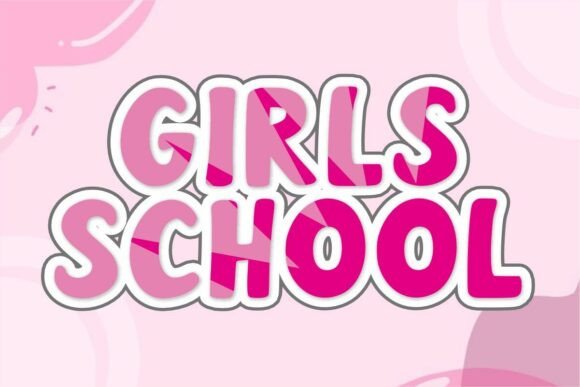
Discover the Perfect Font for a Sweet and Sassy Brand
Have you ever been browsing through design inspiration boards, and suddenly, a font catches your eye? Its playful curves, vibrant colors, and fun textures make you feel like you’re about to create something truly special. For designers, finding that perfect font can be a game-changer, and for many, it’s the “Hello Girls” Regular Font.
This cheerful display font is designed to exude confidence and fun, making it a perfect choice for girl-centric branding, party invitations, and fashion accessories. Its unique combination of chunky letterforms, candy-stripe texture, and dual-toned pink palette creates a sense of motion and sweetness that’s hard to resist. With its smooth curvature and white border with subtle shadows, the “Hellogirls Regular Font” is not only visually appealing but also highly legible.
Hellogirls Regular Font Key Features
- Font Type: Sans-Serif
- Unique Characteristics: Friendly, approachable, and modern design; suitable for various design applications, including digital media, print, and web
Hellogirls Regular Font Review
Overall, I found Hellogirls Regular Font to be a charming and playful font, perfect for designs that need a touch of whimsy.
- The font’s rounded edges and soft curves create a friendly and approachable atmosphere.
- It’s a great choice for designs that need to appeal to a younger audience.
- The font is highly legible, even at smaller font sizes.
- The font may be too playful for designs that require a more serious or professional tone.
- It may not be suitable for body text, as it can be quite busy and overwhelming.
- The font’s rounded edges can make it difficult to read in certain font sizes or on certain devices.
In conclusion, Hellogirls Regular Font is a lovely font that excels at creating a lighthearted and playful atmosphere. However, it may not be the best choice for every design project. Use it sparingly and thoughtfully to get the most out of this charming font.
Tips for Getting the Most Out of Hellogirls Regular Font
For optimal results, use Hellogirls Regular Font for body text or headings in your design. Experiment with different font sizes and colors to create visual hierarchy.
Hellogirls Regular Font is ideal for:
- Blog posts and articles.
- Social media graphics and captions.
Alternatives to Hellogirls Regular Font
Merriweather is a classic and timeless serif font, ideal for use in traditional and academic contexts. It features a sturdy and elegant feel, making it suitable for use in books, journals, and formal documents. Compared to Hellogirls Regular Font, Merriweather is more formal and traditional, but may lack the modern charm of Hellogirls.
What is the recommended font size and line height for the Hellogirls Regular font?
The recommended font size for the Hellogirls Regular font is between 12pt and 24pt, depending on the intended use and design requirements. For optimal readability, we recommend a line height of at least 1.2 times the font size. For example, if you are using a font size of 14pt, we recommend a line height of at least 16.8pt.